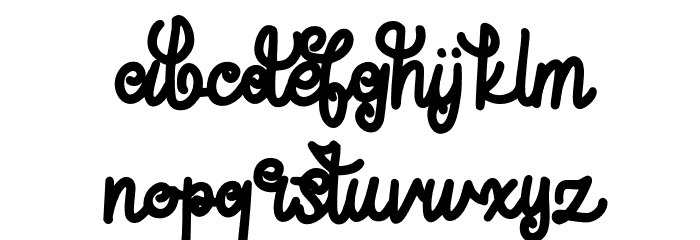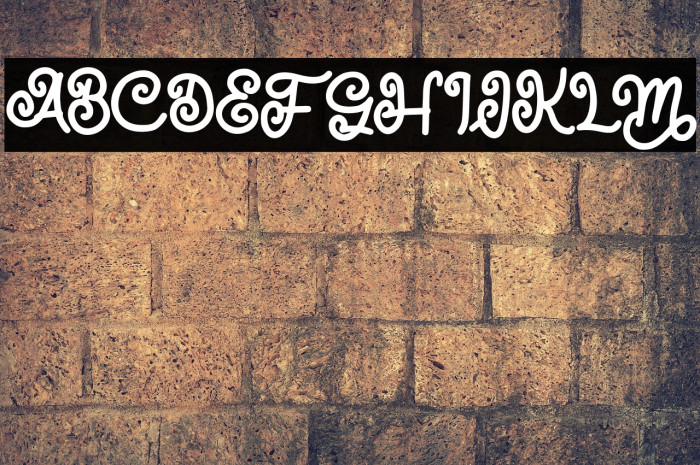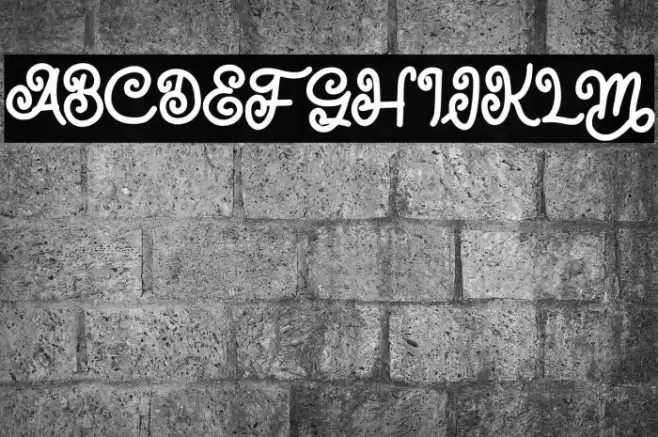
ButterFlyFREE Font
This font features a playful and whimsical design with a handwritten script style. The characters are adorned with loops and curls, giving it a lively and dynamic appearance. The uppercase letters are bold and decorative, while the lowercase letters maintain a consistent flow with a slightly more subdued flair. The numbers and special characters follow the same ornate style, ensuring a cohesive look across all elements. This font is ideal for projects that require a touch of elegance and creativity, such as invitations, greeting cards, and branding materials. Its unique style makes it stand out, adding a personal and artistic touch to any design.
A playful, whimsical handwritten script font with decorative loops and curls.
- Proposed Projects: Ideal for invitations, greeting cards, branding materials, and creative projects.
- Category: Script
- Use Case: Logos, Headlines, Invitations